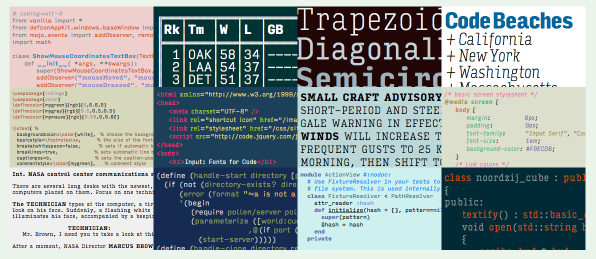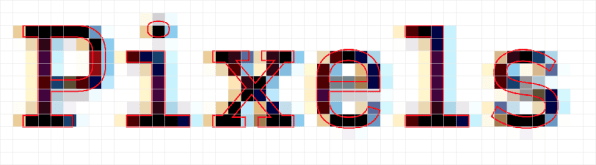
Whether you’re coding apps or banging out short stories, the typeface you choose to write in is important. But most typefaces out there are designed with writers, and not coders, in mind. A new typeface by digtal studio Font Bureau is trying to change that. Called Input, it’s designed with programming apps in mind, but which can still be used by people who wouldn’t know a line of C++ from a command line.
When writers choose a font, they generally do so because of the character it imparts to their text. But for coders it’s the opposite: they want a font that is generally characterless, so as not to obfuscate the massive bodies of code. Consequently, most coders prefer retro-style monospaced fonts, where each character takes up the exact same amount of horizontal space. Because a single typo can mess everything up, these simple, monospaced fonts make code a lot easier to read. They also make it easy for coders to do things like format discrete columns in their code for comments on the right side of a page.
But monospaced fonts also have drawbacks. These fonts are often low resolution, having been designed for antique computer terminals, and when used on modern machines, can be hard on the eyes during marathon programming sessions. And while monospacing offers uniform indentation and large punctuation, it also makes typos much harder to spot when skimming code, since, when dealing with multiple lines of similar code, a line of bad code and a line of good code will be exactly the same width.
The idea behind Input was to come up with a typeface that took its virtues and aesthetic cues from monospaced pixel fonts that coders already use, but to cast off the technical limitations that constrained them. The designer of Input, David Jonathan Ross, started by designing Input as a pixel font, drawing each letter on a standard 11-pixel grid, as if it were a super low resolution font for the computers of yesteryear. After settling on the proportions, Ross then drew the outlines of the finished letter on top of each grid, so he could create a typeface that would look just as good on modern devices.
The result is quite appealing. Input feels like a coding font, especially in regards to its almost mechanical curves and completely straight sides. But at the same time, Input feels very modern: It actually comes in 168 different syles, with multiple widths, optional serifed and sans serif varieties, and can be displayed in both monotype and proportional styles, making it a best-of-both-worlds font for the career coder. But it can also be used by writers who like to let their text, not their typeface, do the talking: in fact, Input looks particularly good as a typeface for would-be screenwriters (who also rely heavily on formatting).
Philosophically, Input is hoping a technically superior alternative can shake up typography in the coding world. “By mixing typographic variation with the power of syntax highlighting, by composing text that transcends a fixed-width grid, and by choosing and combining multiple font styles, we can end all up with code and data that is ultimately easier to read and write,” the Font Bureau says. If you’ve ever pretended to be a cowboy console in Sublime Text, and if you care about good typography, Input can be downloaded for free over at the official site.